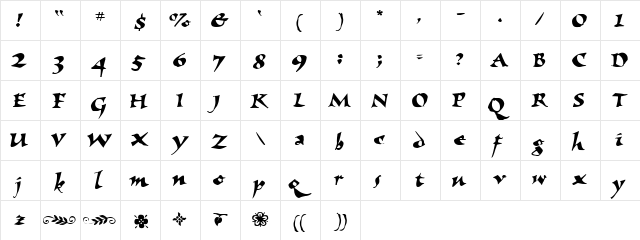
lUBLJANA Script Regular Font Preview
lUBLJANA Script Regular
lUBLJANA Script Regular Font Details
Design Context for lUBLJANA Script Typeface
lUBLJANA Script brings a calligraphic fluidity to the page — its connecting strokes and expressive curves give it an unmistakably human quality.